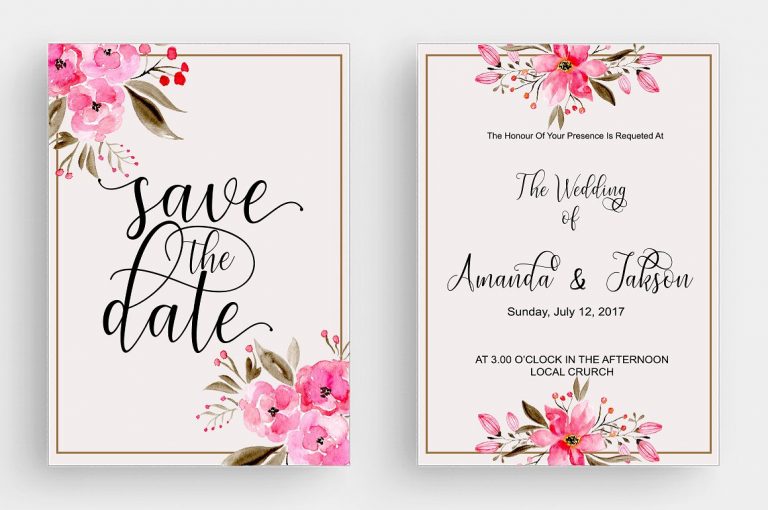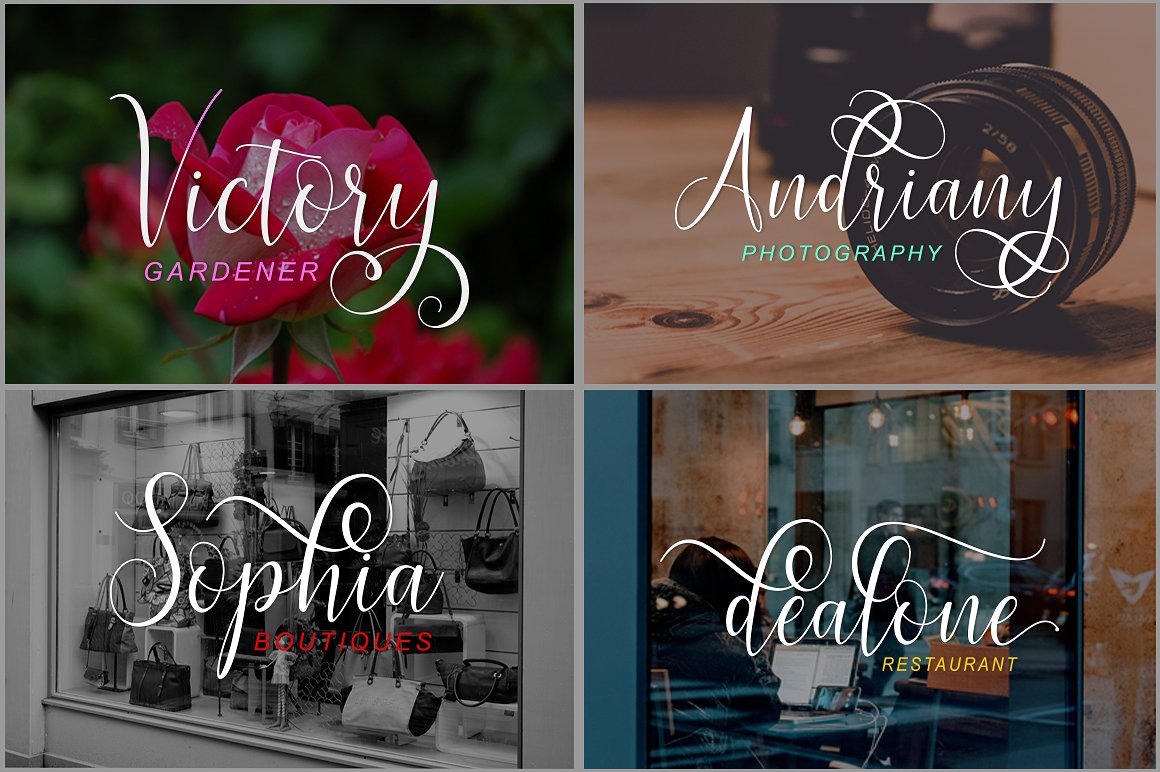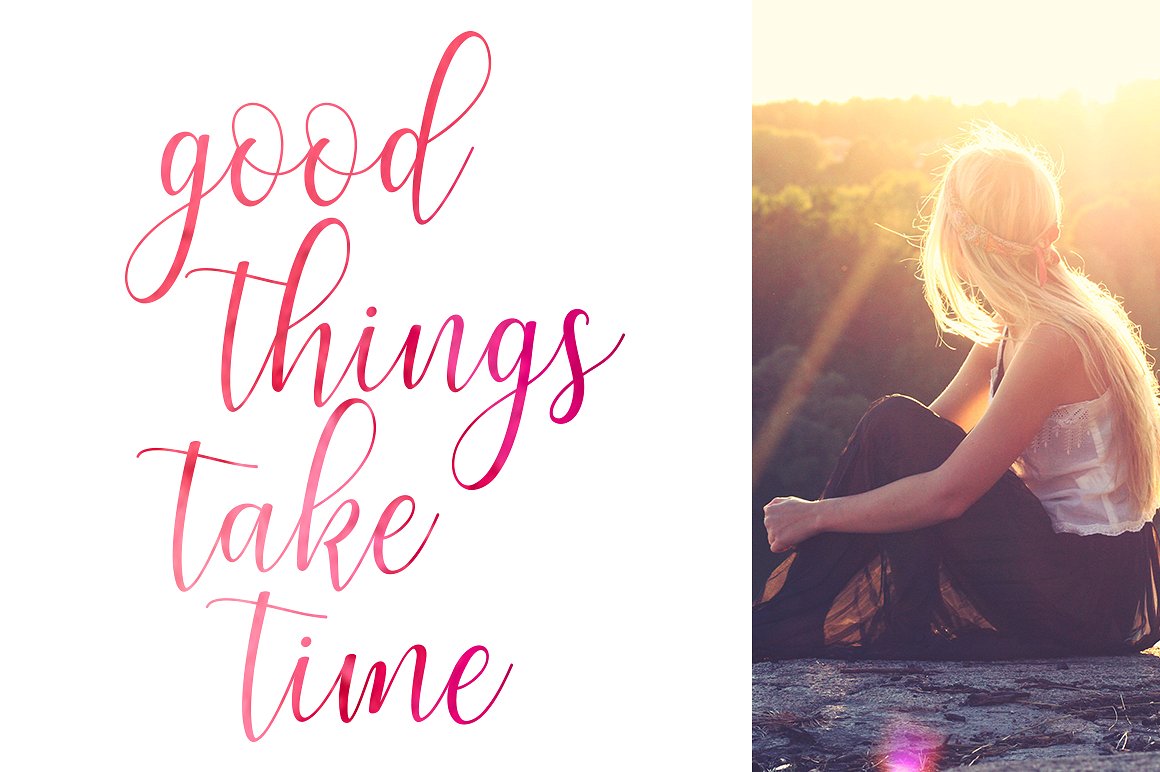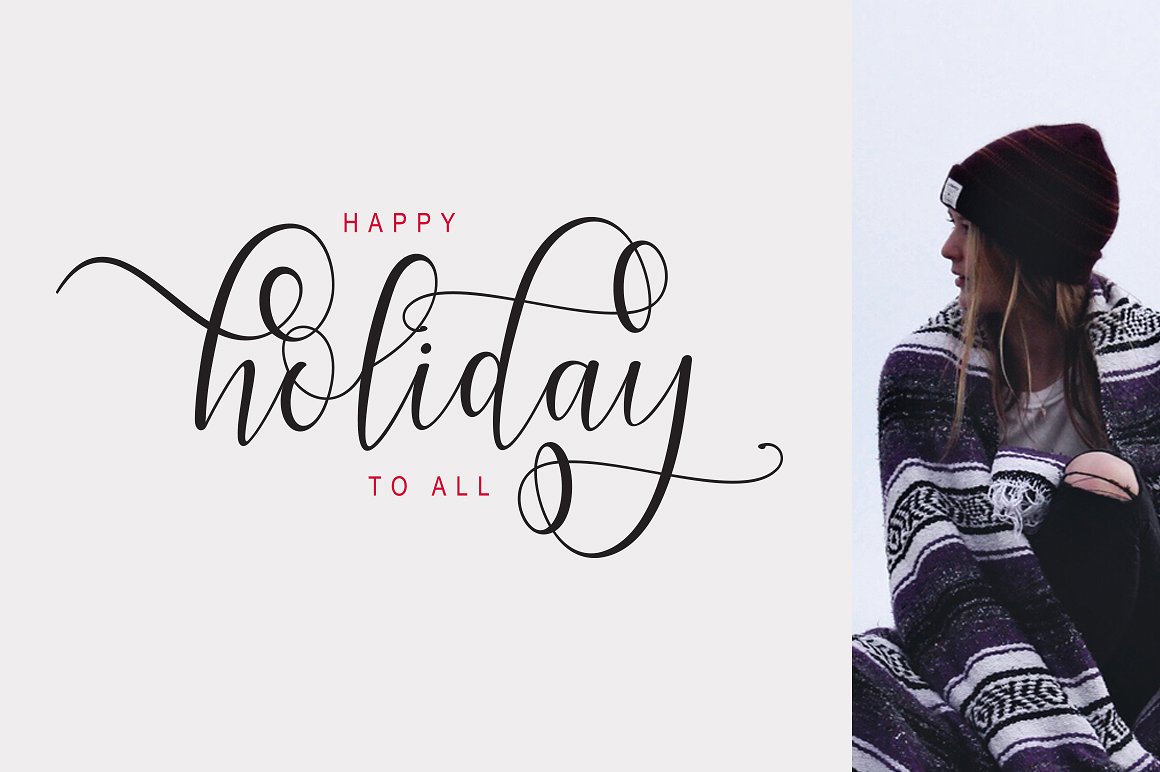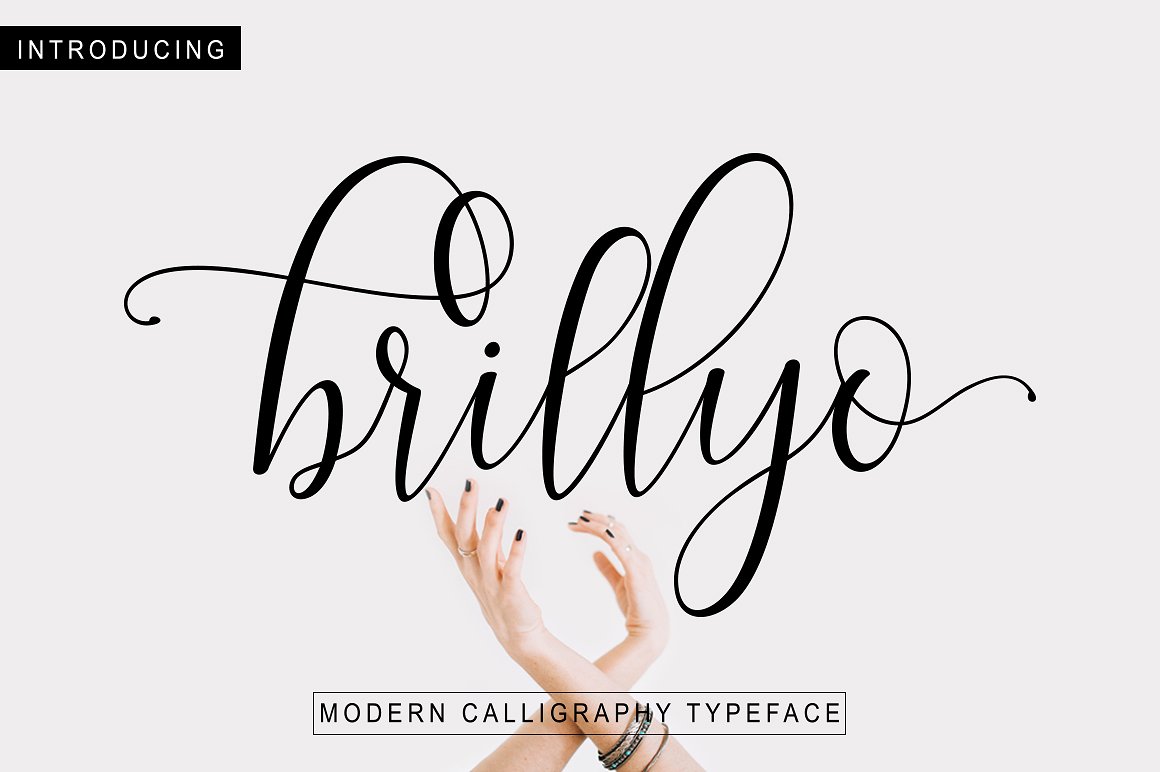
Brillyo Script Font
This is a modern calligraphy typeface, with a soft style and has an elegant nuances, classy and natural. Introducing Brillyo Font. Brillyo Font Family modern script with a handmade calligraphy style, decorative characters and a dancing baseline! Perfect to get a more charismatic impression or unique touch to your projects and branding, greeting cards, wedding, banner, name card, lettering, fonts pairing, etc.